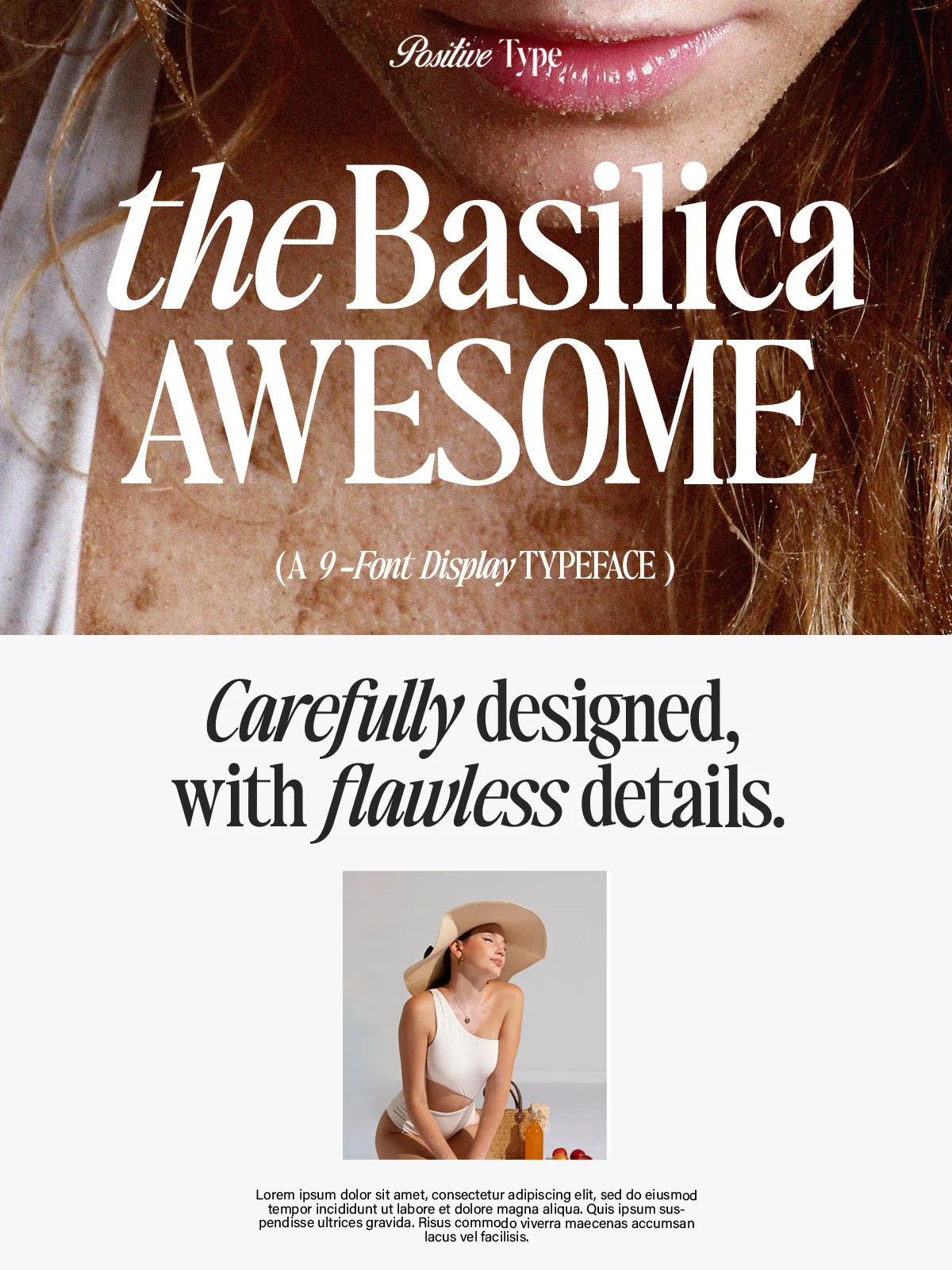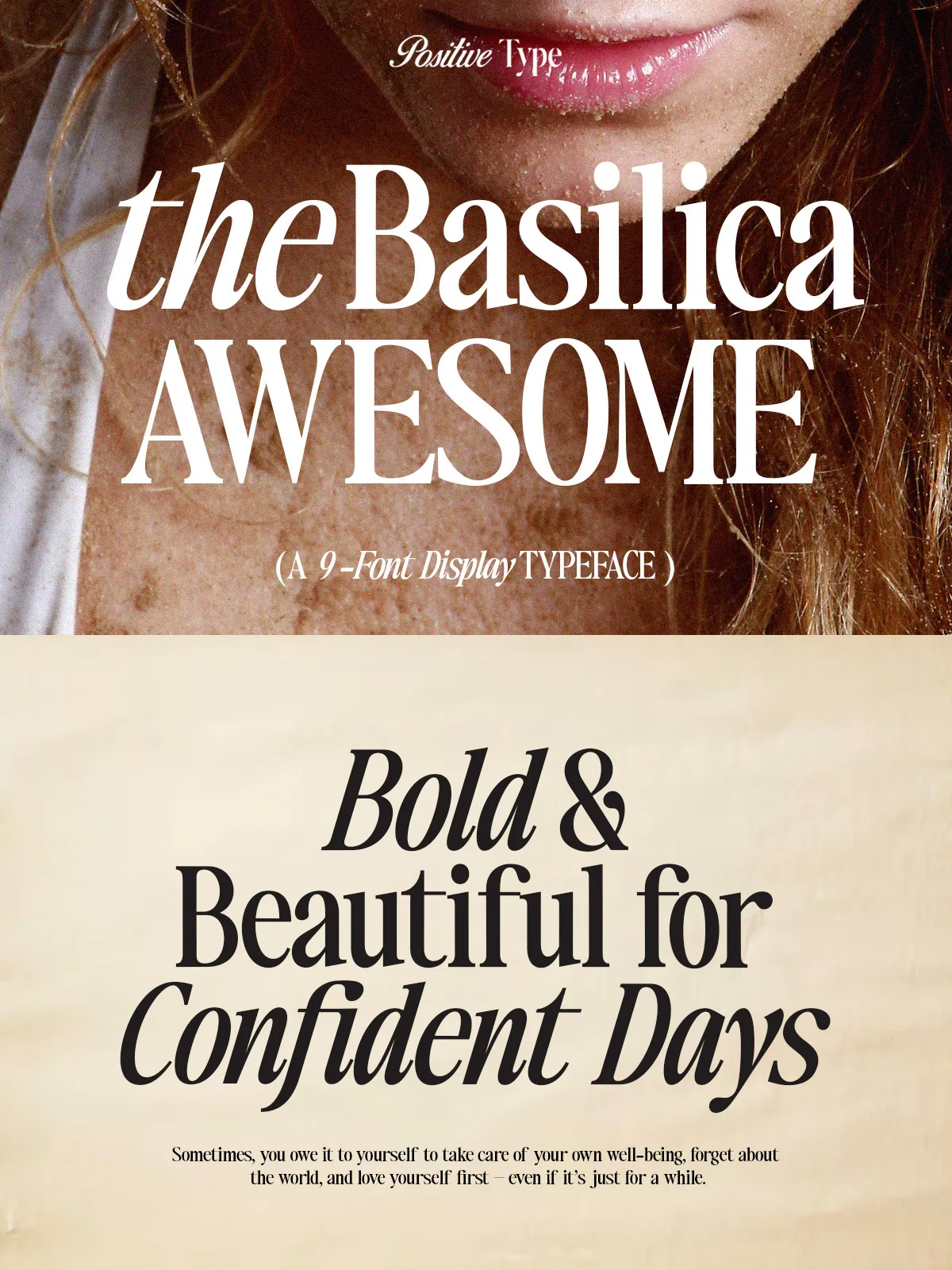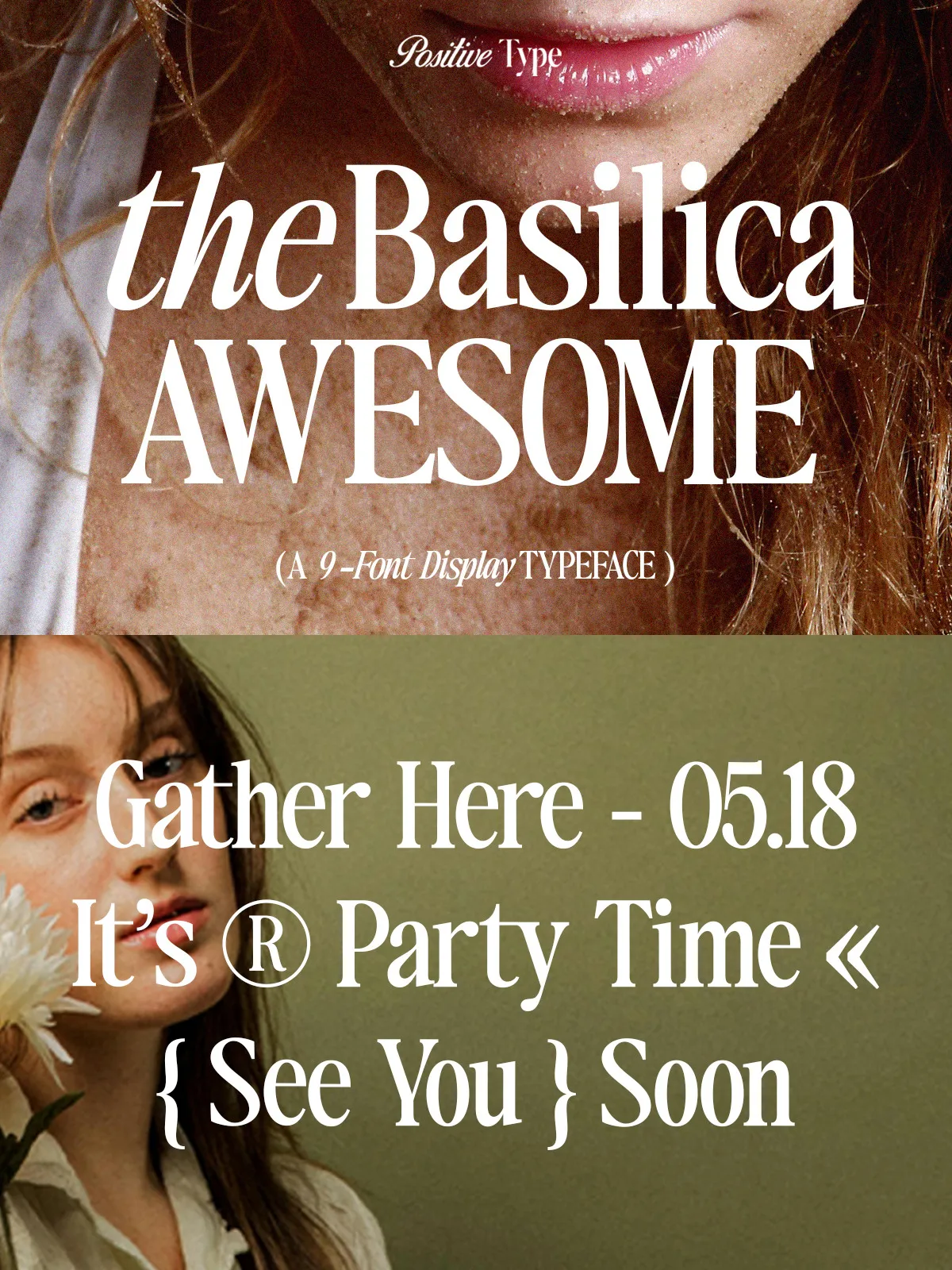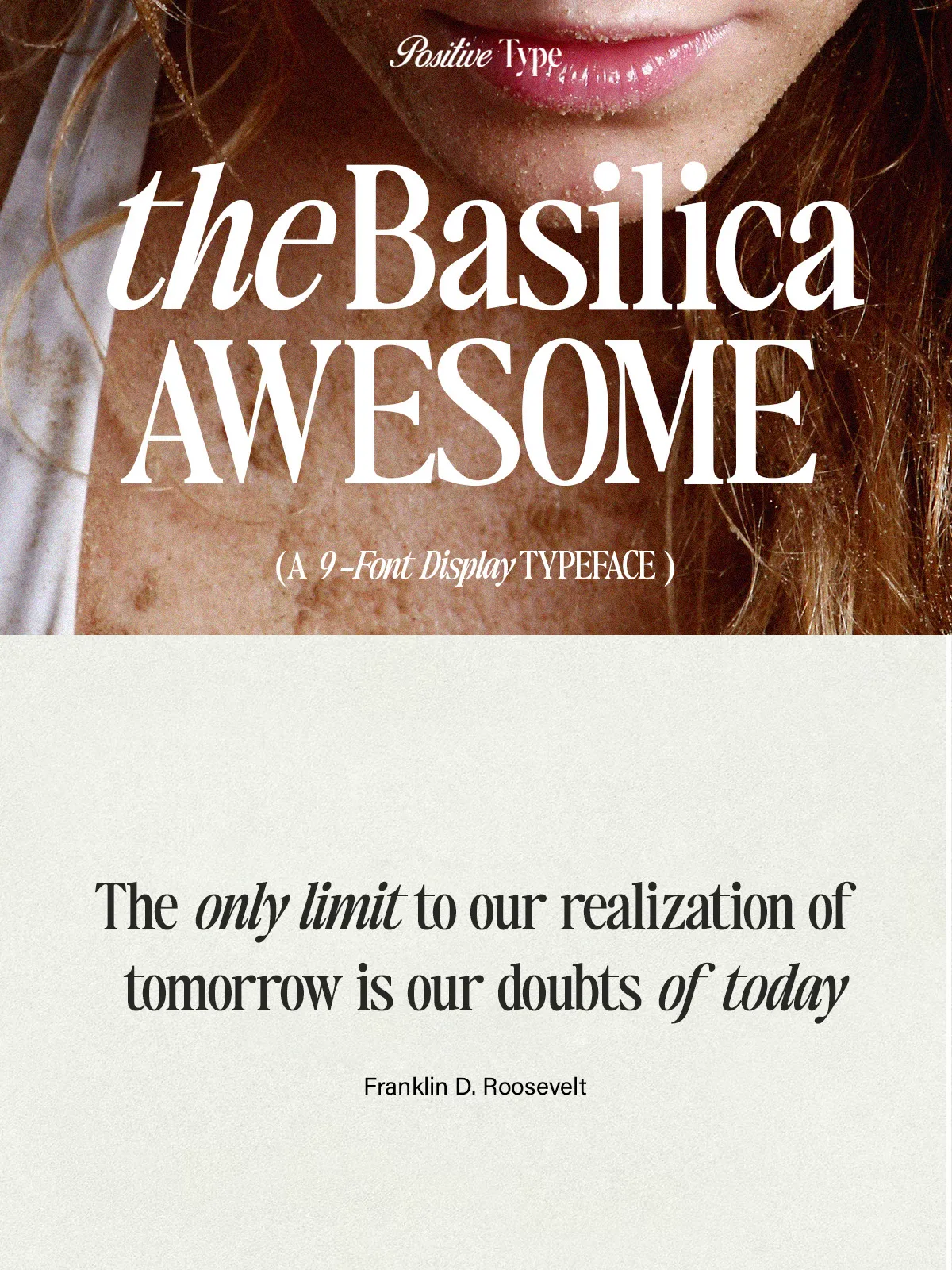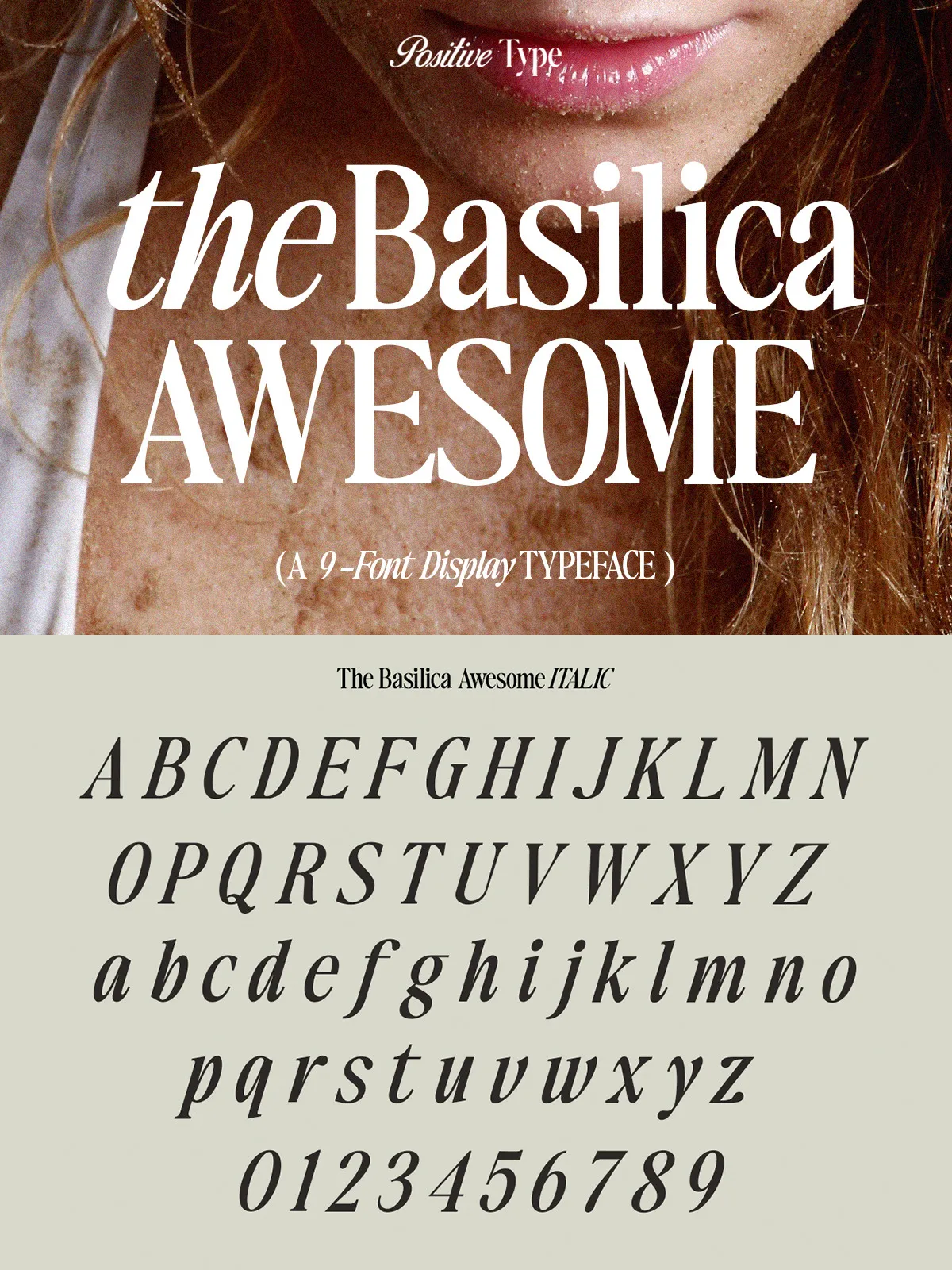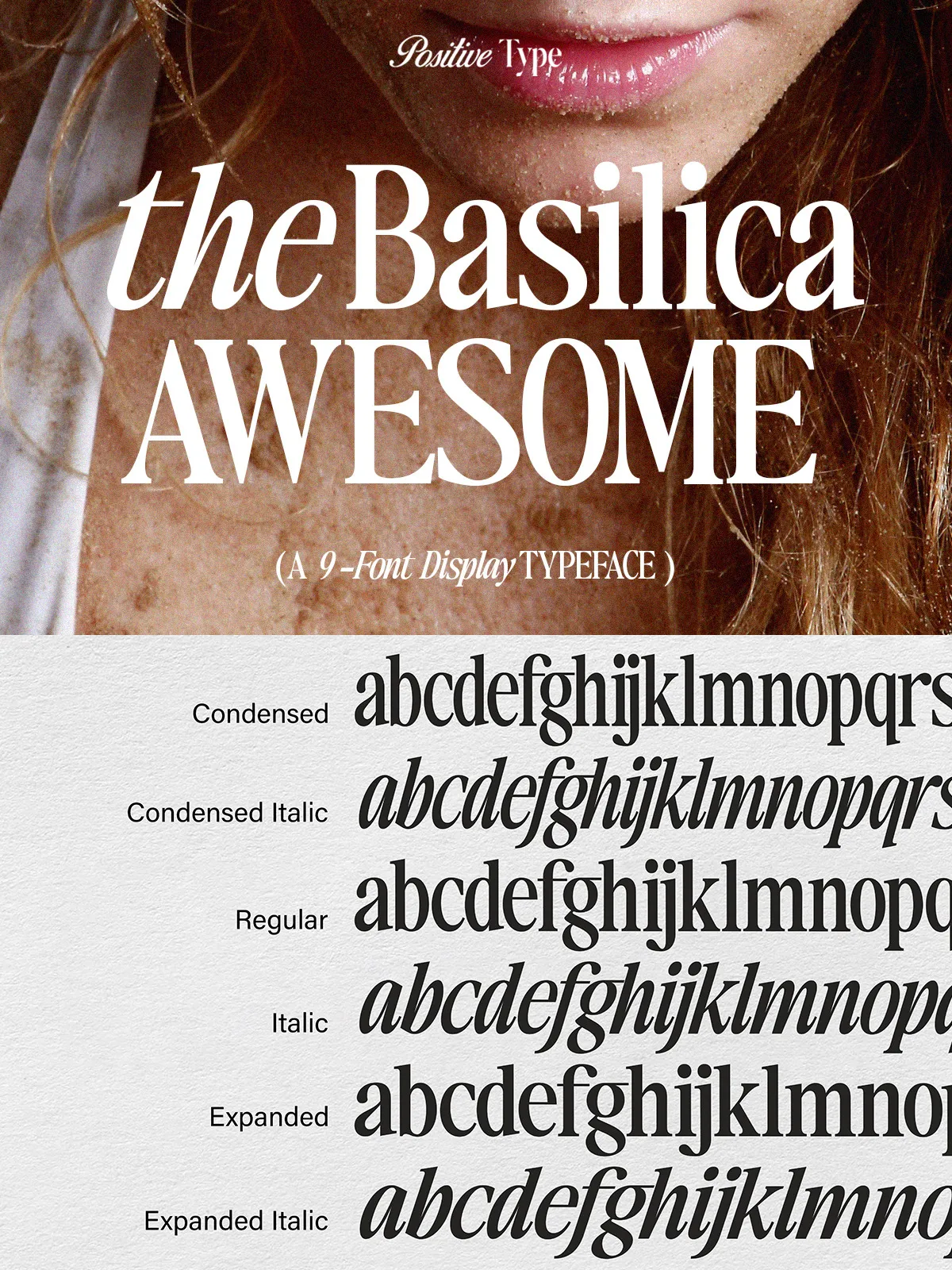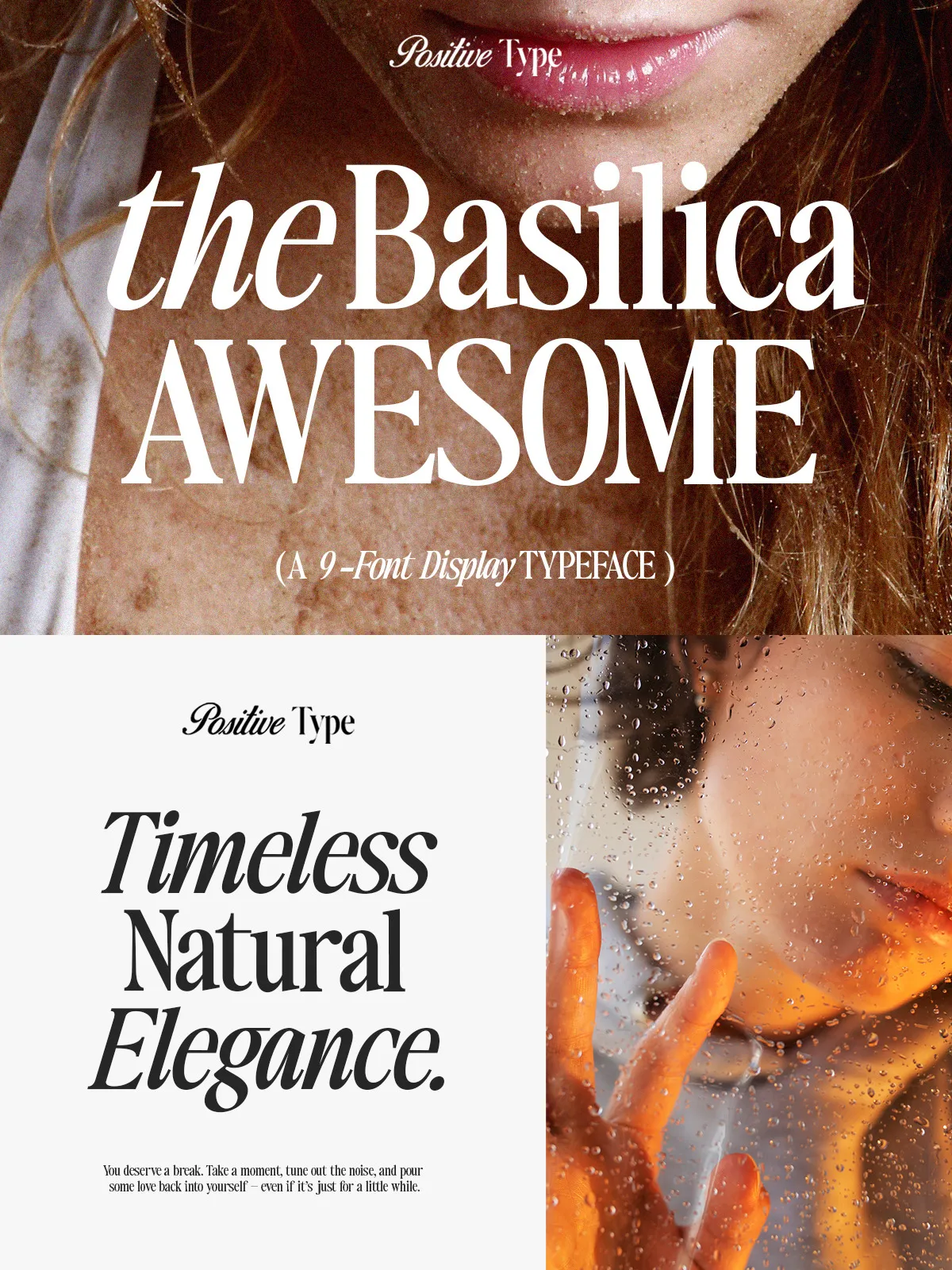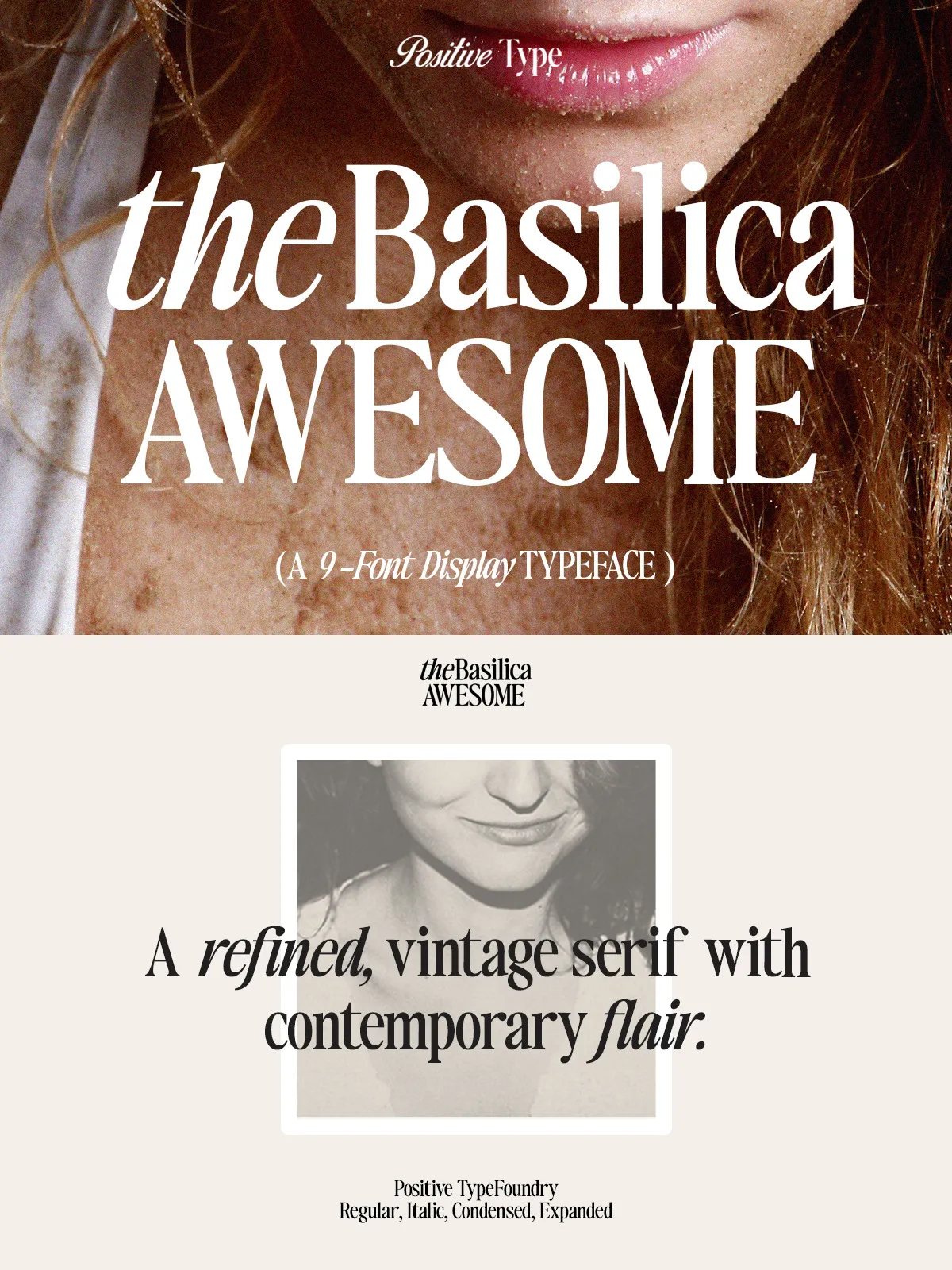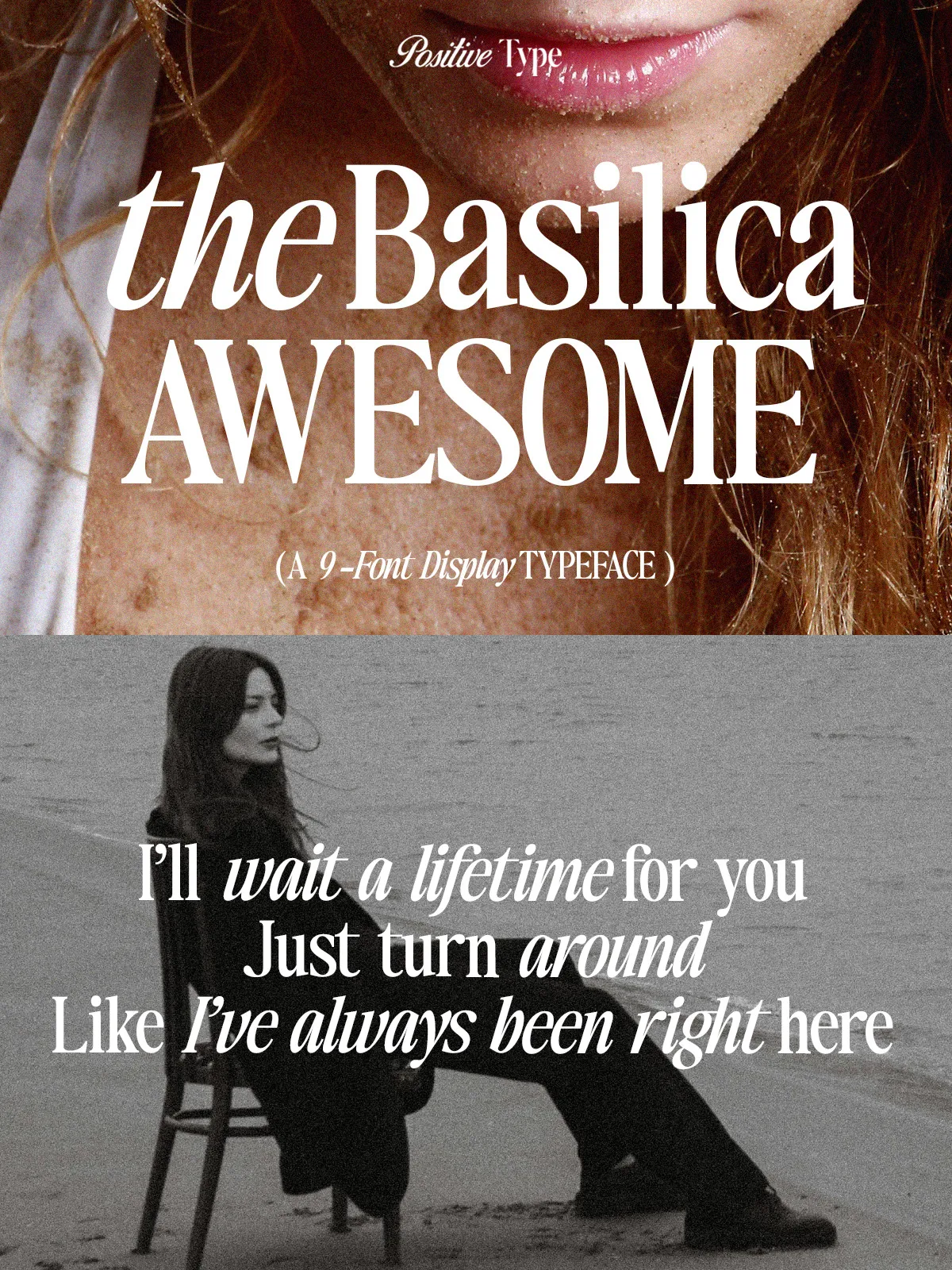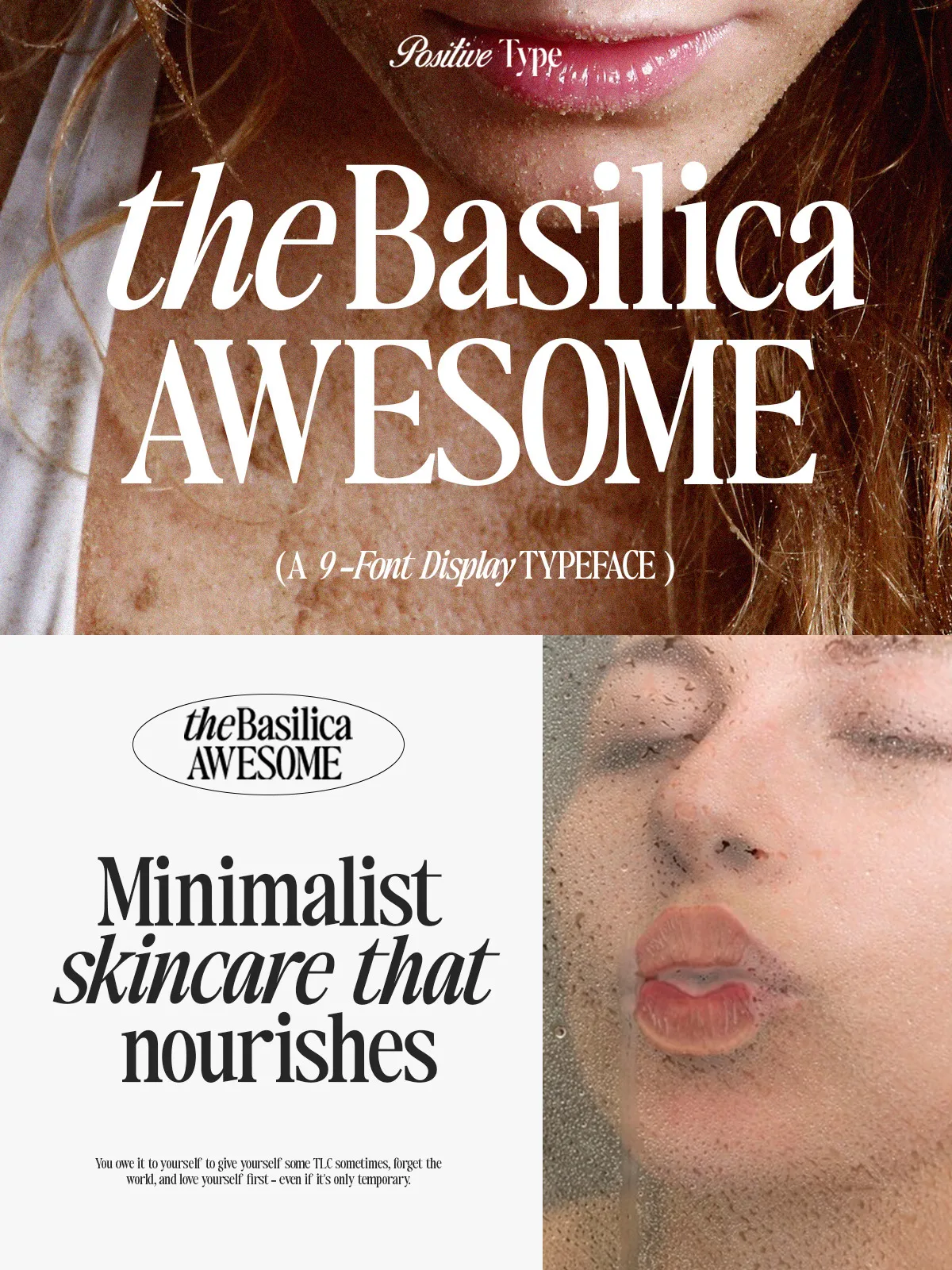
Introducing Basilica Awesome — a bold, modern reinterpretation of vintage serif elegance, crafted for creatives who crave sophistication with character. This font blends the refined grace of classic serif typography with contemporary design sensibility. Its unique, playful serifs are carefully crafted to stand out while maintaining clarity and balance, making it a powerful tool for projects that demand both luxury and distinction.
Whether you’re building a high-end brand identity or creating editorial layouts, Basilica Awesome delivers a commanding presence with every letter. It’s not just a font — it’s a statement of taste, heritage, and confidence in design.
Powerful OpenType Features for Professional-Grade Design
Basilica Awesome is more than just beautiful — it’s engineered for real-world creative use. With a full suite of OpenType features, this typeface gives you precise control over visual tone, rhythm, and style without compromising workflow efficiency.
- Extensive Character Set: Includes full uppercase and lowercase letters, numerals, punctuation, and a wide range of symbols.
- Contextual Alternates: Automatically adjusts letterforms based on surrounding characters for natural, flowing text.
- Multiple Ligatures: Streamlines word connections (like ‘fi’, ‘ff’, ‘st’) for polished, professional results.
Perfect for Luxury Branding, Editorial Design, and Creative Projects
Basilica Awesome isn’t limited to one style — it adapts across a broad spectrum of design applications, bringing elegance and personality to every surface.
Applications That Shine with Basilica Awesome
- Logo & Brand Identity: Ideal for luxury goods, boutique fashion, art galleries, and premium services. Make your brand memorable with a timeless, distinctive voice.
- Magazine & Editorial Titles: Elevate section headers, cover headlines, and typography layouts with a bold, vintage-inspired presence.
- Apparel & Fashion Packaging: Perfect for t-shirt designs, labels, garment tags, and luxury packaging with a retro-inspired twist.
- Postcards & Stationery: Add a personal touch to wedding invitations, greeting cards, and premium event materials.
- Advertising & Print Campaigns: Command attention with impactful headlines and sophisticated typography that says “quality” before a word is read.
Tailored for Creatives Who Demand Excellence
Basilica Awesome is crafted for designers, art directors, and branding professionals who refuse to settle for generic or flat typography. It’s built to inspire — not just to fill space.
Designed with careful attention to stroke weight, serif variation, and spacing, it performs flawlessly at small sizes and shines at large formats. It’s equally effective in digital interfaces, web headers, and high-resolution print, giving you consistent, high-impact results across all platforms.
Design with Legacy. Create with Confidence.
Basilica Awesome isn’t just about letters — it’s about legacy, identity, and emotional resonance. It’s for the designers who believe typography should feel like art, not just text.
Don’t just choose a font — choose a story. Choose Basilica Awesome and let your work speak with elegance, character, and lasting impact.